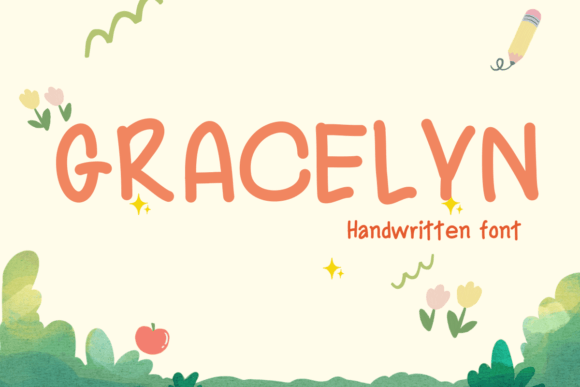
Prepare to be captivated by Gracelyn Font, the enchanting sans serif font that will transform your creative visions into captivating realities. Sirinart, the mastermind behind this typographic masterpiece, has meticulously crafted each letterform with an artistic flair that is both playful and sophisticated.
Unleash your inner artist and let your imagination run wild as you explore the endless possibilities that Gracelyn Font presents. Its charming handwritten style adds a touch of whimsy and uniqueness to any project, whether it's a heartfelt note, a personal diary, or an eye-catching greeting card.
But Gracelyn Font's versatility doesn't stop there. Its graceful curves and dynamic strokes lend themselves beautifully to a wide range of design applications, from captivating banners and engaging content to stylish mugs, personalized cards, trendy shirts, and elegant stationery. Elevate your social media presence with captivating posts that stand out from the crowd.
Imagine the impact of your words when they're adorned with the charm and character of Gracelyn Font. It's the perfect font for expressing yourself authentically, whether you're sharing heartfelt thoughts, inspiring messages, or simply connecting with loved ones.
With Gracelyn Font at your fingertips, you'll discover a world of creative possibilities that will leave you feeling inspired and empowered. Embrace the joy of self-expression and let your creativity shine through with every word you write.